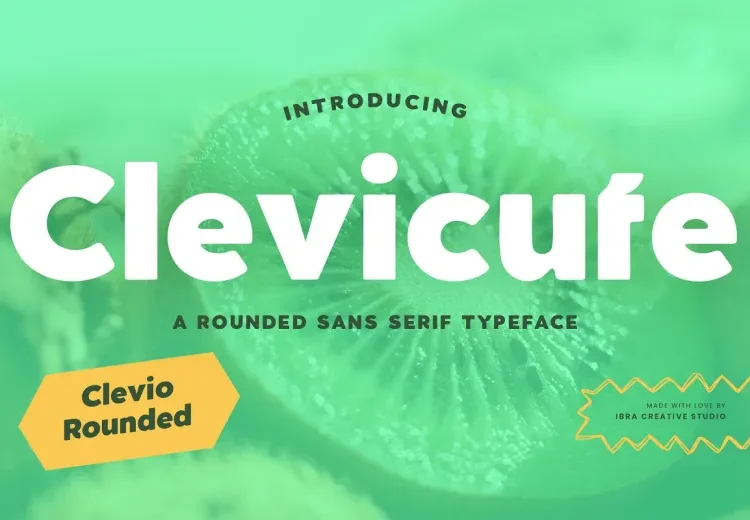
Clevicute Font
Clevicute is a sans-serif rounded typeface that exudes warmth and friendliness through its soft curves and harmonious proportions. The rounded edges of this font create a gentle, approachable feel, making it ideal for designs that seek to combine contemporary aesthetics with a welcoming tone.
Perfect for a variety of applications, Clevicute adds a touch of playful elegance to headlines, branding efforts, and digital interfaces. Its versatile nature and cheerful character make it a great choice for projects that aim to engage and charm the audience with a blend of modern style and visual appeal.